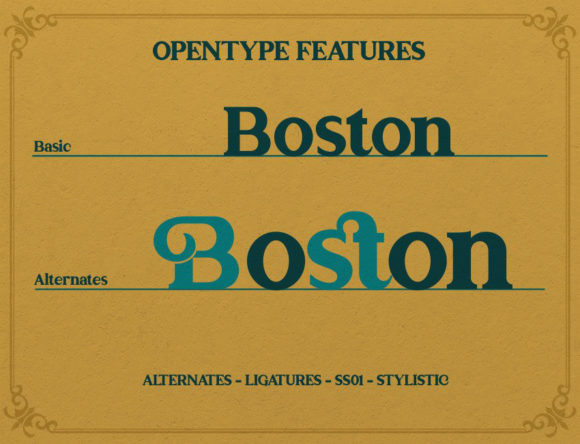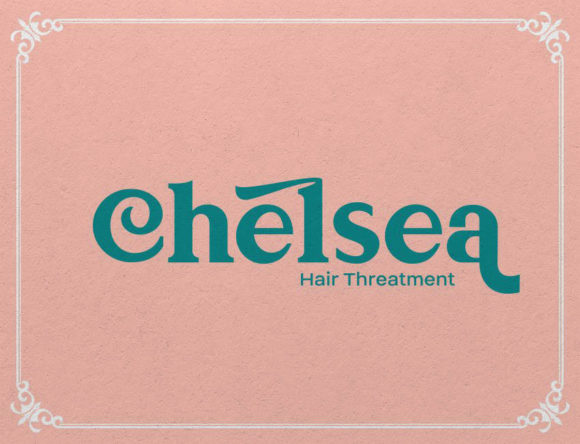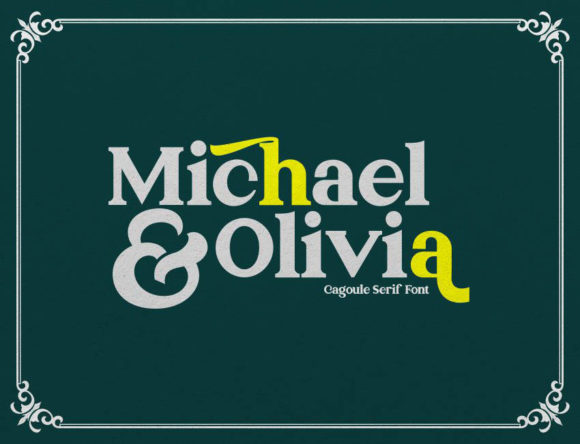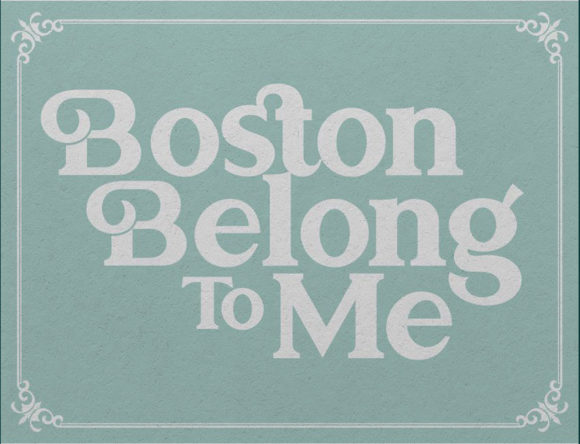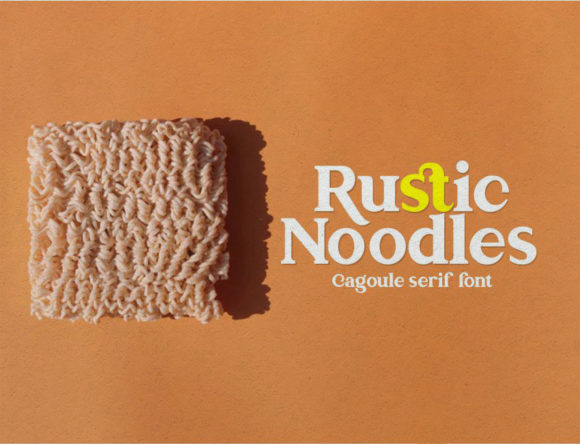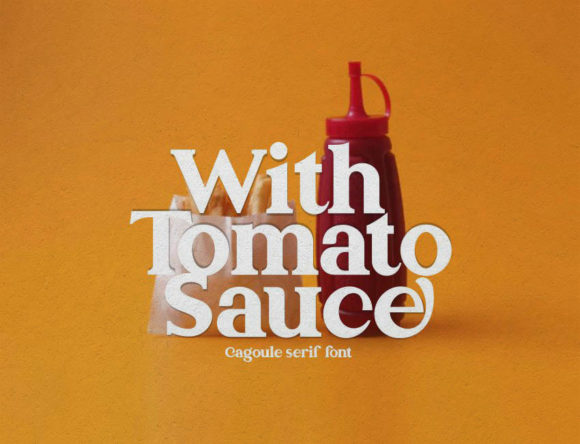
Discover the Timeless Elegance of Cagoule Font
Have you ever found yourself lost in the world of typography, searching for that perfect font to bring your design to life? For many of us, it’s a moment of pure creative joy, when the right font clicks and our vision starts to take shape. This is exactly what happens when you stumble upon the Cagoule Font – an elegant and cool serif font that exudes sophistication and style.
Crafted with precision, Cagoule Font is the perfect choice for designers looking to add a touch of personality to their projects. Whether it’s a wedding invitation, a thank you card, or a logo, this versatile font is sure to make a lasting impression. With its unique blend of modern and classic elements, Cagoule Font is an invaluable addition to any designer’s toolkit.
Cagoule Font Key Features
- Character Set: This font features a comprehensive character set, including uppercase and lowercase letters, numerals, punctuation marks, and a variety of special characters, making it suitable for various design applications.
- Unique Characteristics: The Cagoule Font is known for its distinctive, modern design with a blend of geometric and organic elements, making it an ideal choice for designers seeking a unique visual identity.
Cagoule Font Review
Overall, I was impressed with the Cagoule Font, but it also has some limitations. Let’s dive into what works well and what doesn’t.
- Unique aesthetic: Cagoule Font has a distinct, quirky feel that can add character to any design project.
- High-quality glyphs: The font’s glyphs are well-crafted and smooth, making it a pleasure to use in digital and print projects.
- Good legibility: The font is easy to read, even at smaller font sizes, which is essential for any font.
- Limited character set: The Cagoule Font has a relatively small character set, which may limit its usability for certain projects.
- No bold or italic variants: The font only comes in regular weight, which can make it difficult to create emphasis or distinguish between different types of text.
Overall, I would give the Cagoule Font 3.5 out of 5 stars. While it has a unique aesthetic and high-quality glyphs, its limited character set and lack of bold or italic variants hold it back from being a top-tier font. Still, it’s a great choice for designers looking to add some personality to their projects.
Getting the Most Out of Cagoule Font
To get the most out of Cagoule Font, use it in bold, italics, or all caps to create visual interest. You can also use Cagoule Font in combination with other fonts to create a unique and eye-catching design.
Cagoule Font is commonly used in graphic design, branding, and advertising. It is particularly effective in creating a modern and edgy look. Use Cagoule Font for headings, titles